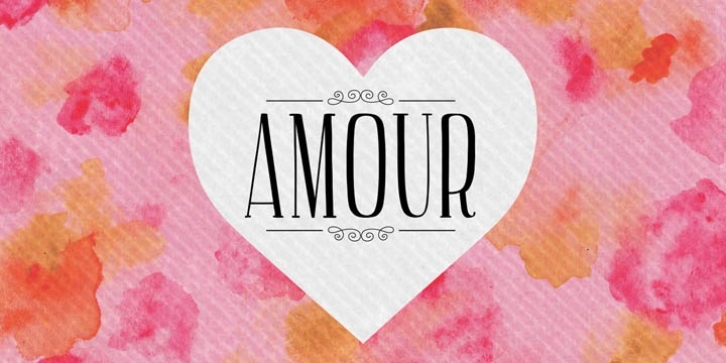
AMOUR is a dingbat and display serif font family. This typeface has six styles and was published by Cultivated Mind.
Amour is a romantic handwritten retro inspired font by Cultivated Mind. This type face includes 4 fonts (basic/thin/ornaments/frames) and four weights. Amour works lovely for stationery, valentine’s day, magazines, weddings, invitations, websites and anytime you would like to express your love.